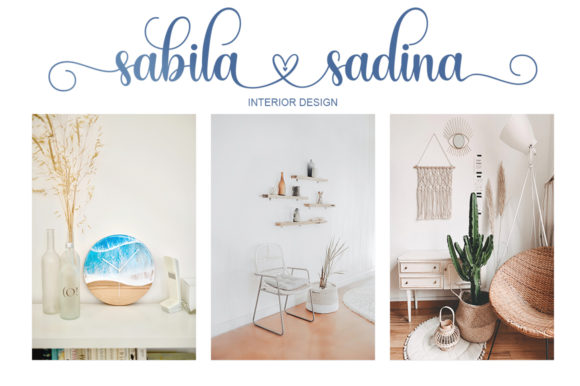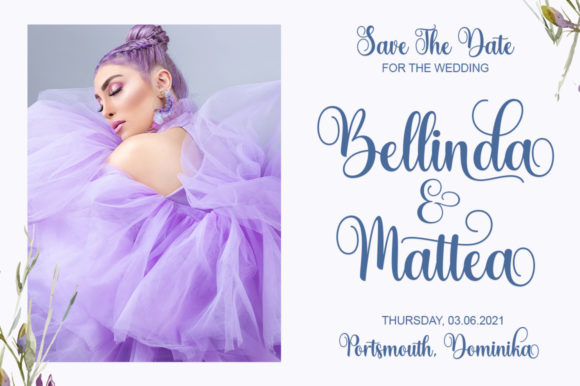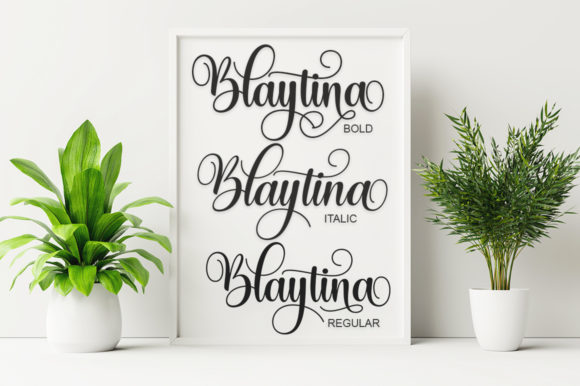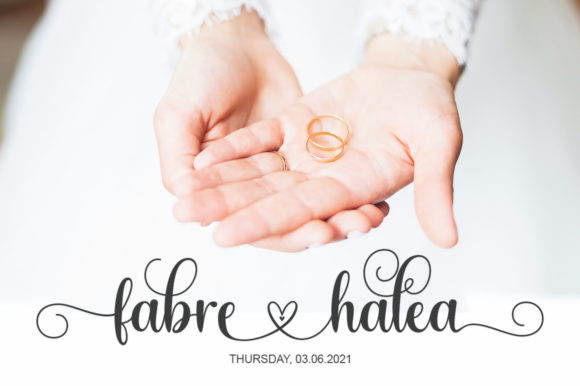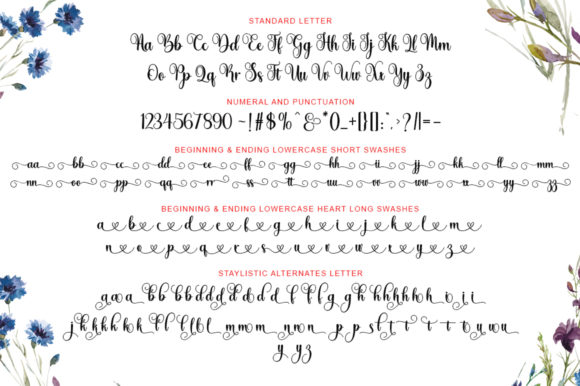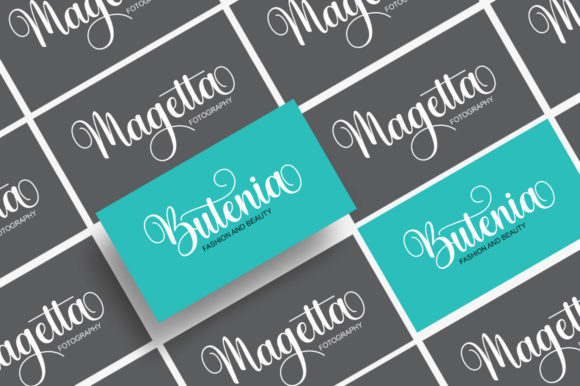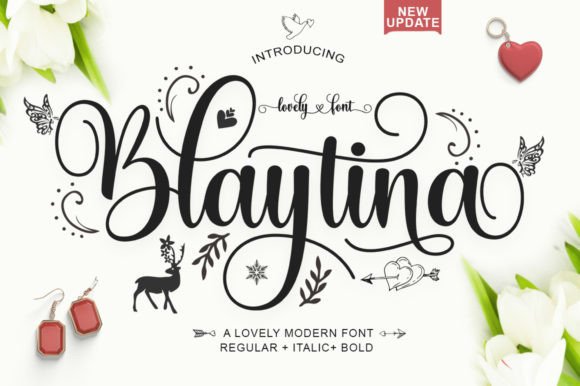
The Blaytina Font: A Romantic and Sweet Calligraphy Typeface
Have you ever been in the middle of a design project, and suddenly, you realize that it’s missing that special something? I recall a project where I was tasked with creating a luxury brand identity, and no matter how hard I tried, I just couldn’t find the right font to capture the essence of the brand. That’s when I stumbled upon the Blaytina font, and it completely transformed my design!
A Personal Review of Blaytina Font
I’m excited to share my honest review of the Blaytina font, and I’ll cover what I love about it, as well as some minor quirks I’ve encountered.
What I Love About Blaytina Font
- ✨ Romantic and Sweet Calligraphy: Blaytina’s characters dance along the baseline, giving it a whimsical and elegant feel that’s perfect for luxury designs.
- ✅ PUA Encoded: The font is PUA encoded, making it easy to access all the amazing glyphs and ligatures.
- 💫 Luxury Spark: Blaytina adds a touch of sophistication and glamour to any design project, making it ideal for high-end branding, packaging, and more.
While Blaytina is an excellent font, I’ve noticed a few minor quirks:
- 🤔 Limited Use on Non-OpenType Platforms: Blaytina’s advanced features might not work seamlessly on non-OpenType platforms, such as older versions of Microsoft Word.
- ⚠️ Some Ligatures May Not Display Correctly: In certain applications, some ligatures might not display correctly, which can affect the overall aesthetic of your design.
The Story Behind Blaytina Font
Blaytina was designed with the intention of creating a romantic and sweet calligraphy typeface that would add a touch of luxury to any design project. The designer’s inspiration came from traditional calligraphy and the desire to create a font that would evoke feelings of elegance and sophistication.
| What is Blaytina font best used for? | Blaytina font is ideal for luxury designs, high-end branding, packaging, and any project that requires a touch of elegance and sophistication. |
| Is Blaytina font suitable for body text? | While Blaytina is a beautiful font, it’s best used for headlines, titles, and short paragraphs. It’s not recommended for body text due to its script nature. |
| Does Blaytina font support OpenType features? | Yes, Blaytina font is PUA encoded and supports OpenType features, making it easy to access glyphs and ligatures. |